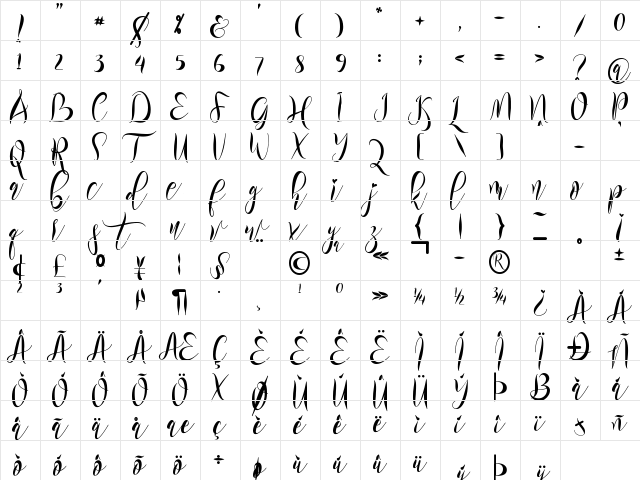
Rillilove Regular Font Preview
Rillilove Regular
Rillilove Regular Font Details
| Designer | Yoga Letter 2020 (Isroni Yoga Prasetya) |
Design Context for Rillilove Typeface
Rillilove is a composed and adaptable typeface that performs quietly and consistently across a wide range of design contexts.